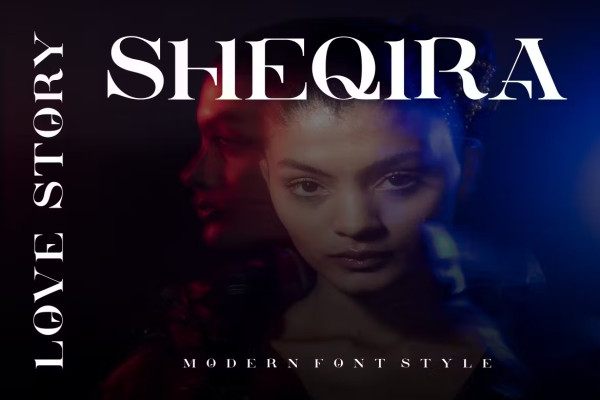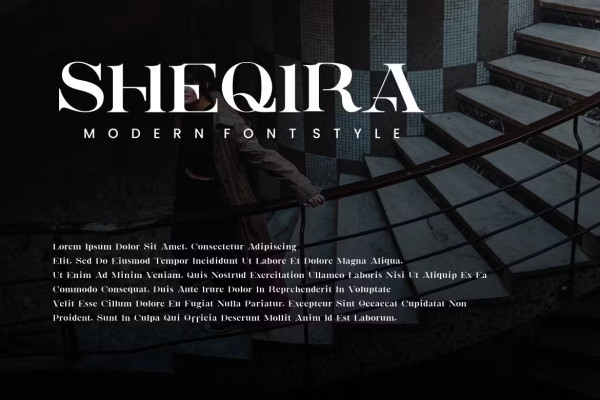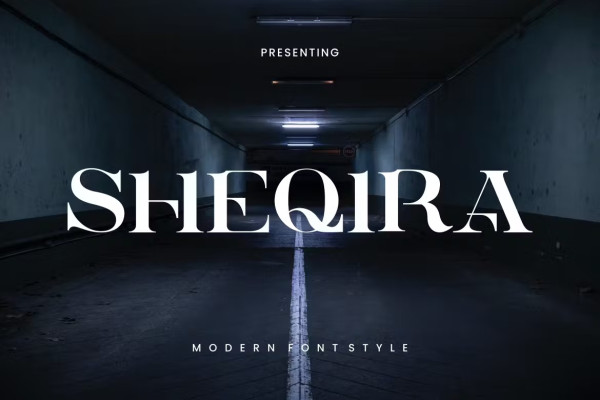
Sheqira Font
Sheqira Font, a simple and modern font . So perfect for you who needs a typeface for logo designs, magazine, social media, brochure, and many more.